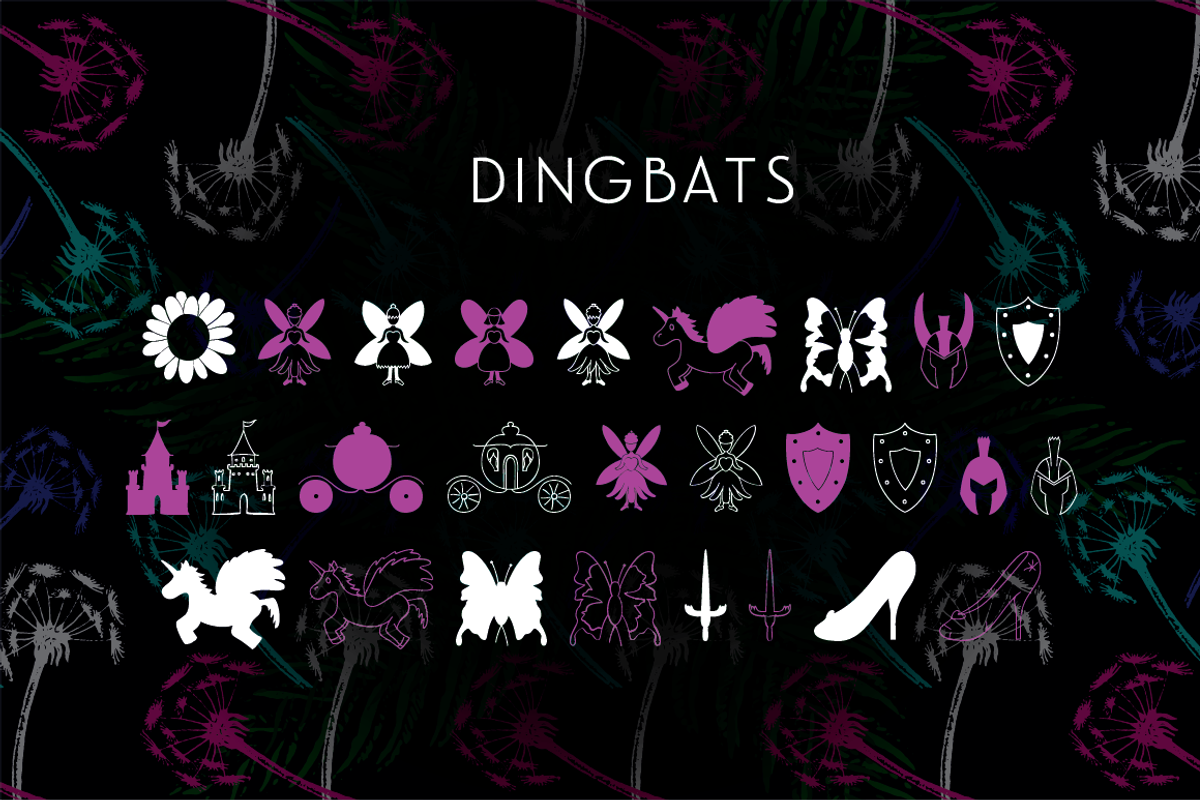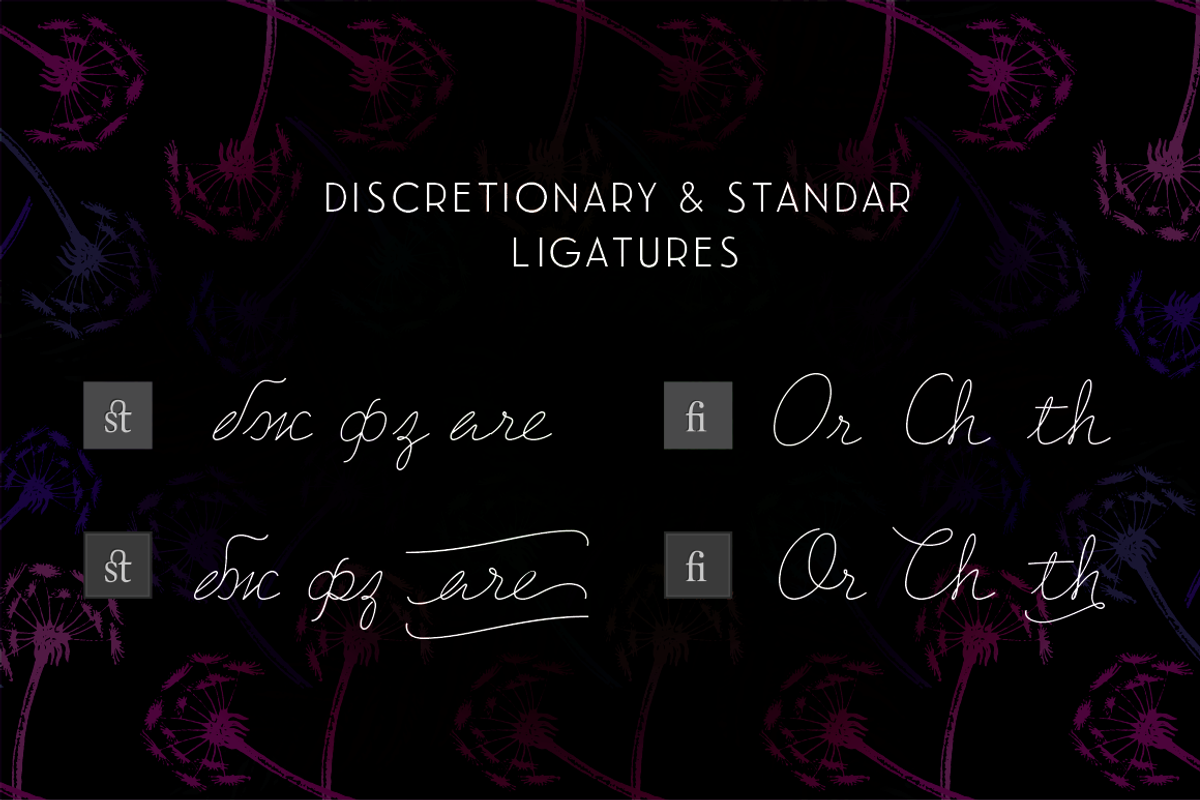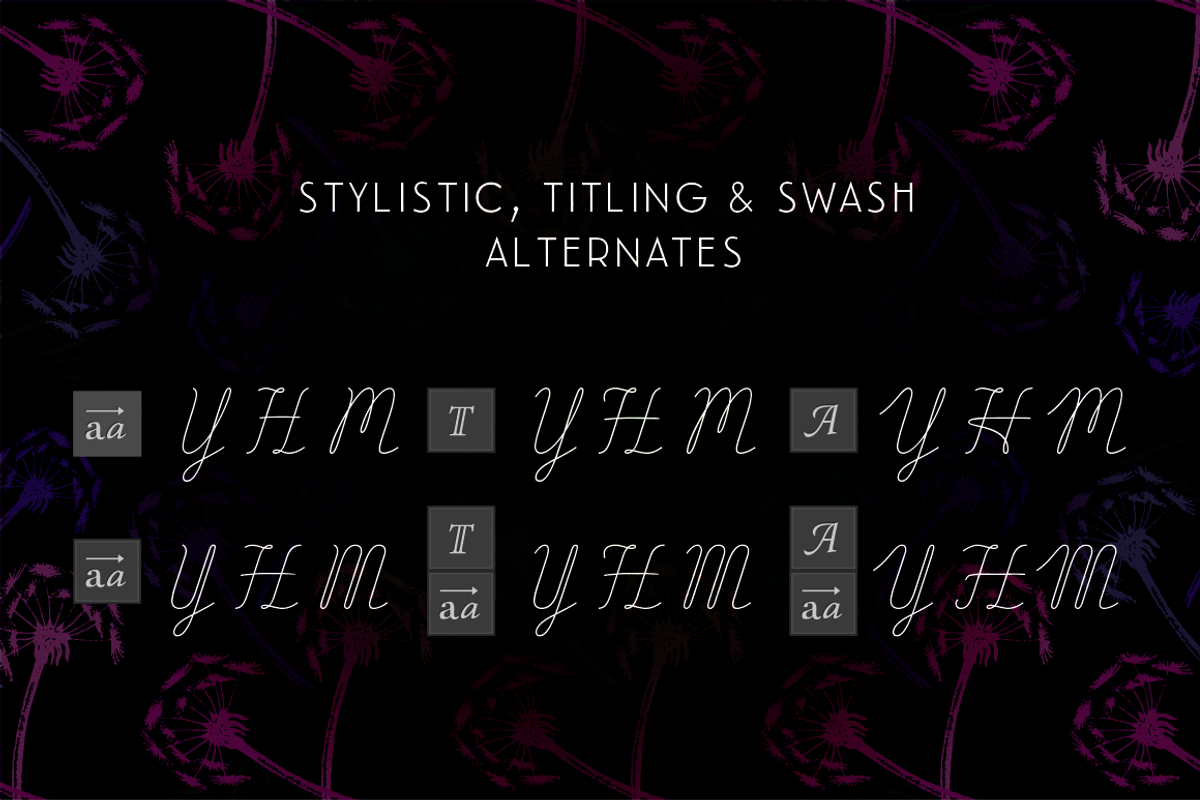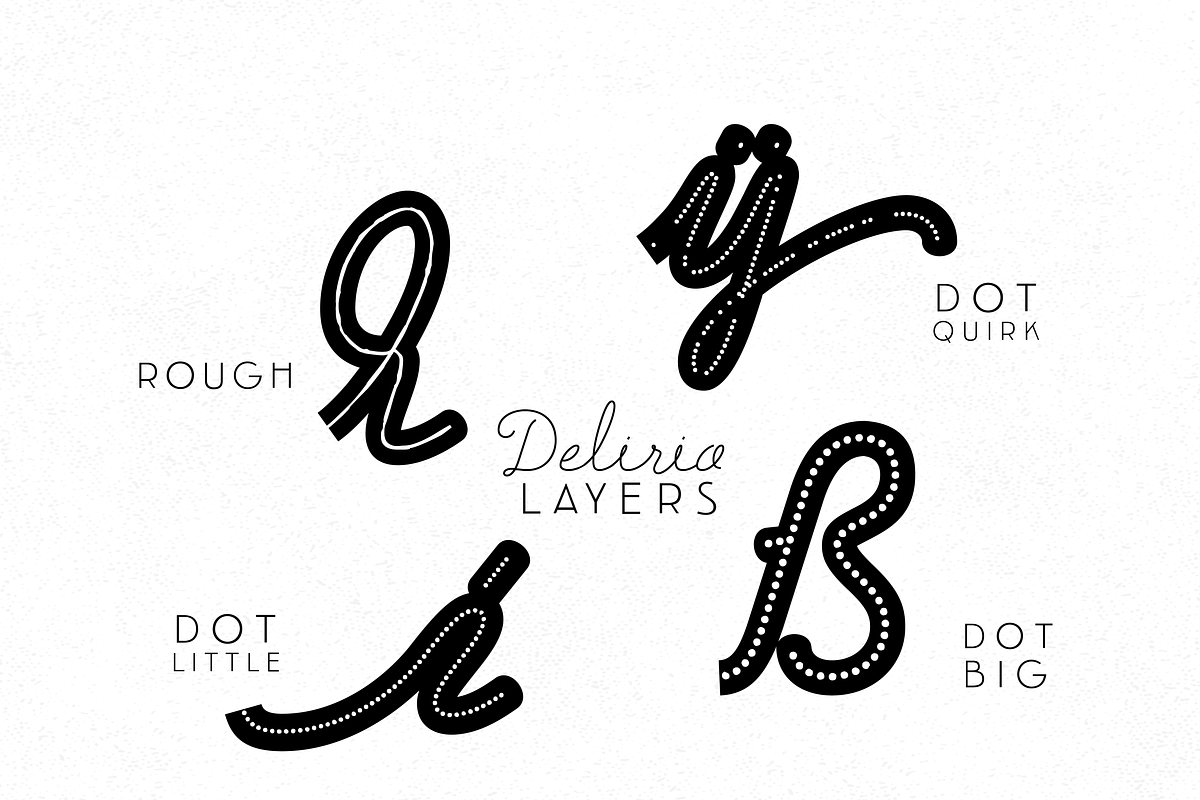
-Numbers set dingbats
-A-Z DelirioPoker
-a-z DelirioRegular
-Brush file for use with the "poker" set.
The font Delirio combine spontaneus traces of cursive style, every one have 4 weights including one call "poker" with this you can choose or generated your brushes for more diversity you can also use it as a guide of vector to generate graphical pieces that need a linear stroke of a beginning and an end avoiding the annoying vector-vector construction.